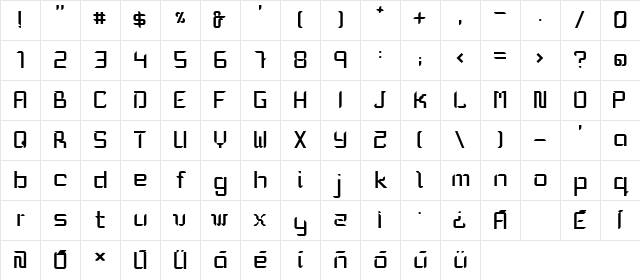
Mika Medium
Design Context for Mika
Mika is a composed and adaptable typeface that performs quietly and consistently across a wide range of design contexts.